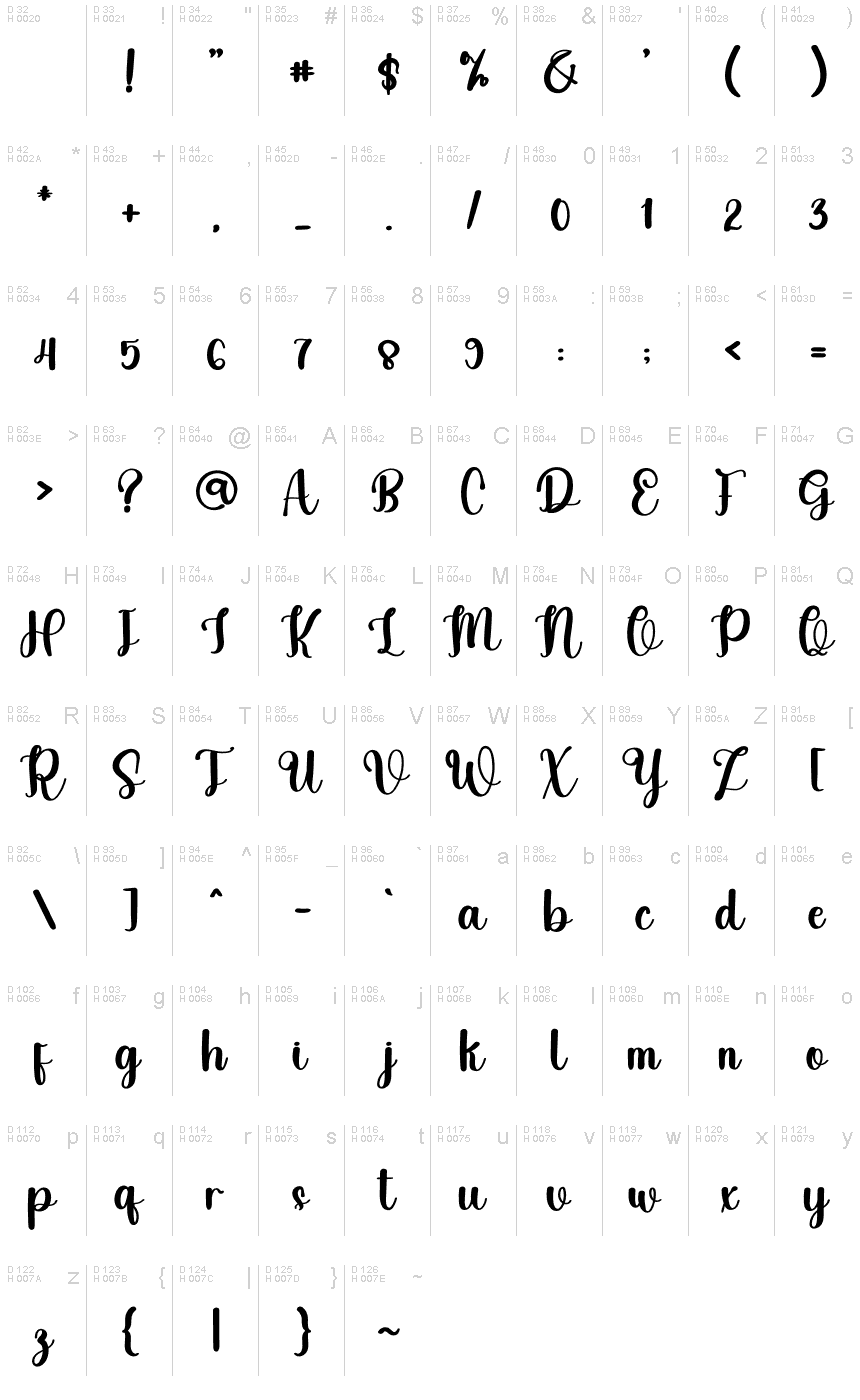
Vintage
Vintage, the mesmerizing creation of FreshtypeINK, is a calligraphy-inspired font that exudes elegance and charm. With its semi-bold weight, this font adds a touch of sophistication to any project. Perfect for wedding invitations, luxury branding, and boutique signage, Vintage elevates your design to new heights. Its graceful strokes and timeless appeal make it an ideal choice for vintage-themed projects such as retro logos or nostalgic packaging. Let Vintage transport your audience to a bygone era where beauty meets nostalgia, leaving them captivated by its distinctive allure.